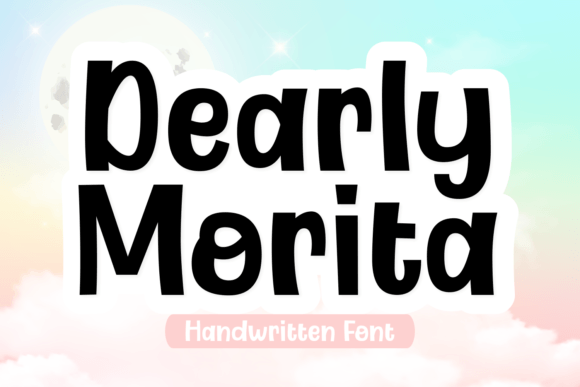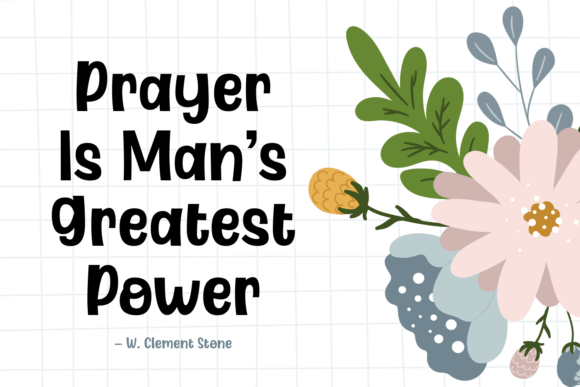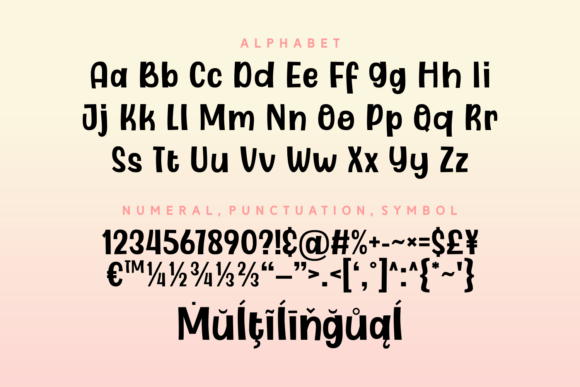
Introduction to Dearly Morita Font
Do you remember the excitement of creating your first project as a designer? The rush of ideas, the thrill of bringing your vision to life – it’s a feeling like no other. For many of us, that spark of creativity is what drives us to keep pushing the boundaries of what’s possible. And when it comes to adding a touch of whimsy and fun to our designs, the right font can make all the difference.
That’s where the Dearly Morita Font comes in – a playful, happy, and amusing display typeface that’s sure to bring a smile to your face. Whether you’re working on a creative project for a kid’s game, a cartoon, or just something to brighten up a friend’s day, this font is a valuable resource that’s sure to deliver high-quality results.
With its transparent background and free download option, the Dearly Morita Font is an accessible design resource that’s easy to incorporate into your next project. And with its unique, hand-drawn feel, you’ll be able to add a personal touch that sets your work apart from the rest.
Key Features of Dearly Morita Font
- Unique Hand-Drawn Design: The Dearly Morita Font features a distinctive hand-drawn design, making it a great resource for creative projects that require a personal touch.
- Perfect for Creative Projects: With its unique design and high-quality files, the Dearly Morita Font is an ideal choice for designers working on creative projects that require a high level of visual appeal.
- Regular and Bold Weights: The font comes in regular and bold weights, providing users with a range of options to suit their design needs.
Honest Review: Dearly Morita Font
I recently stumbled upon the Dearly Morita Font, and I must say it’s been a game-changer for my creative project. The font is a high-quality design resource that offers a unique blend of traditional and modern styles.
What works well for me is the font’s versatility. I can use it for a wide range of design applications, from branding to editorial content. The font’s clear lines and elegant curves make it perfect for creating visually appealing headings and body text.
However, I do have some limitations with the font. The font family is relatively small, which can make it difficult to use for large-scale designs. Additionally, the font’s weight and style options are limited, which may not be ideal for designers who prefer a wide range of customization options.
Tips for Getting the Most Out of Dearly Morita Font